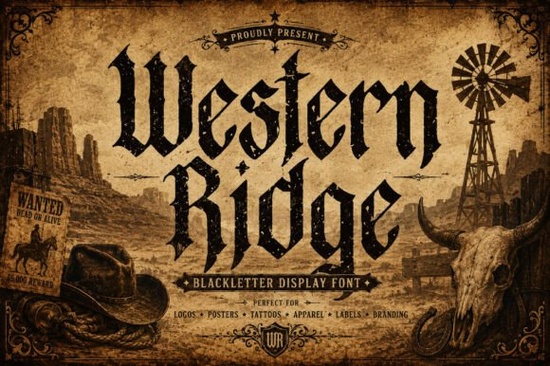
If you're searching for a bold typeface that channels the rugged spirit of the Old West, the Western Ridge Font is worth a close look. It's a blackletter display font built with heavy strokes, sharp serif details, and a distressed vintage texture the kind of typography you'd expect on an old wanted poster or a whiskey bottle label. For designers working on rustic branding, country-themed merchandise, or retro Americana projects, this font brings an authentic western look without feeling cheap or gimmicky.
What Makes Western Ridge Different from Other Blackletter Fonts?
Blackletter fonts have been around for centuries, but most lean toward a medieval or tattoo-parlor aesthetic. Western Ridge takes that gothic foundation and layers in cowboy-era personality. The distressed texture gives every letter a weathered, handcrafted feel like it's been sun-bleached on a barn door for decades. That aged appearance sets it apart from clean, modern blackletter typefaces that can feel sterile by comparison.
Here's what stands out about its design:
- Bold, heavy strokes that grab attention at large display sizes
- Sharp serif details that add structure and readability
- Distressed vintage texture built directly into the letterforms
- Old-west character inspired by saloon signage and outlaw culture
If you're comparing options in the blackletter fonts category, Western Ridge occupies a specific niche it's not trying to be elegant or formal. It's designed to feel loud, confident, and unmistakably western.
Who Is This Font Best For?
Western Ridge works well for a surprisingly wide range of creative projects. Here are some of the most common uses:
- Logo design ranches, rodeos, BBQ restaurants, bourbon brands, and outdoor adventure companies
- Apparel branding t-shirt designs, hat embroidery mockups, and western wear labels
- Print-on-demand products mugs, posters, stickers, and merchandise with a vintage Americana vibe
- Packaging design whiskey bottles, hot sauce labels, craft beer branding
- Event materials country music flyers, rodeo posters, and festival graphics
- Tattoo-inspired artwork flash sheets, tattoo studio branding, and illustrative lettering
Does It Actually Read Well at Smaller Sizes?
That's a fair question with any decorative blackletter font. Western Ridge is designed as a display typeface, which means it's meant for headlines, logos, and large-format text not body copy. At poster-size or logo-scale, the sharp details and textured edges read clearly. At small paragraph sizes, the intricate blackletter shapes can get muddy, which is expected.
A good rule of thumb: use Western Ridge for anything above 36pt, and pair it with a clean sans-serif or simple serif for smaller text. That contrast actually makes the display font pop even more.
How Does It Compare to Other Blackletter Options?
If you like the direction of Western Ridge but want something slightly different, Velthoven Black Font is another solid blackletter choice with its own personality. It leans into a slightly different aesthetic, so depending on the project, one may fit better than the other. Having both in your font library gives you flexibility across different client briefs and design styles.
You can also browse more options by searching for Western Ridge Font on Creative Fabrica to see the full product page and licensing details.
Tips for Getting the Most Out of This Font
- Pair it with simple typefaces. A clean sans-serif like Montserrat or Open Sans balances the heavy blackletter style.
- Use it on textured backgrounds. Kraft paper, wood grain, and leather textures amplify the vintage western feel.
- Experiment with letter spacing. Tightening the tracking slightly can make the letters feel more cohesive at display sizes.
- Test it in all caps vs. mixed case. Both styles are included, and they often work best in different contexts.
Quick Checklist Before You Buy
- ✅ Do you need a display font for large-scale western or vintage designs?
- ✅ Does your project call for a rugged, distressed look rather than a clean modern style?
- ✅ Are you pairing it with a simpler font for body text?
- ✅ Did you test it at the size you'll actually use it?